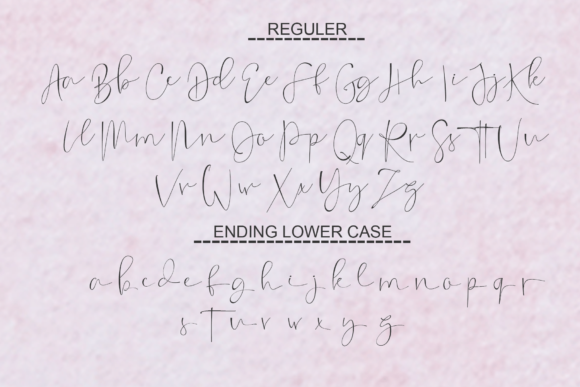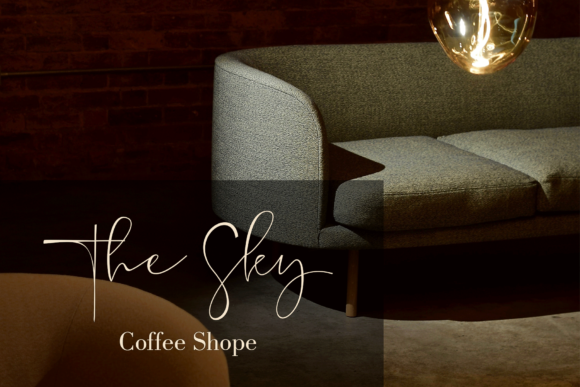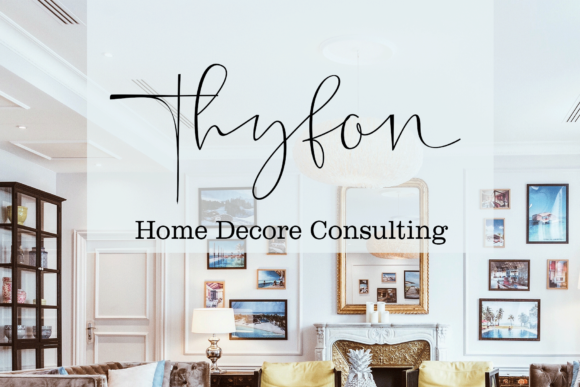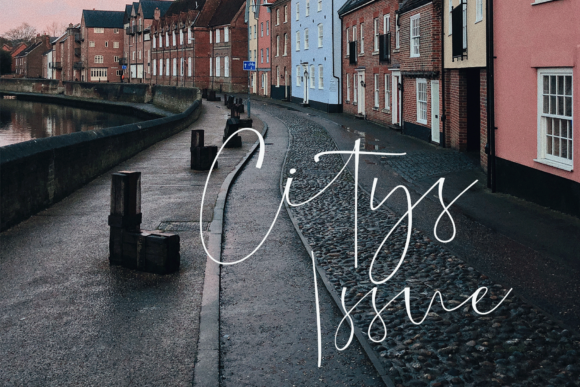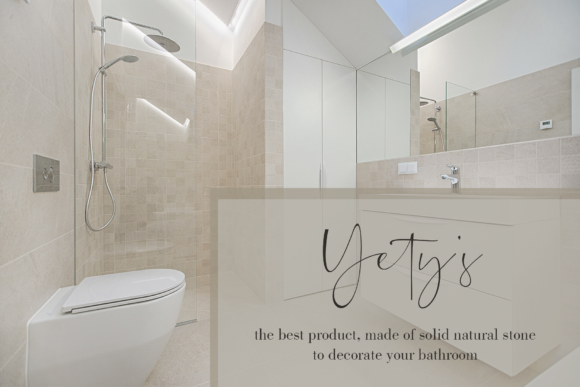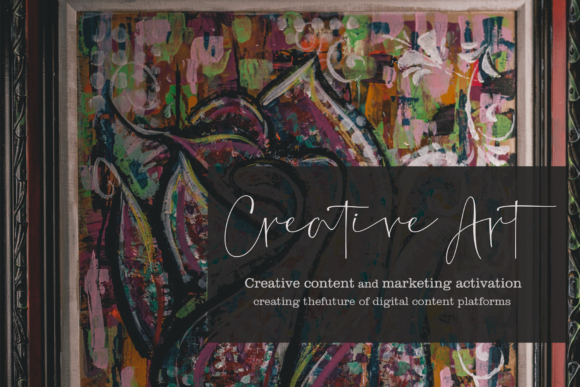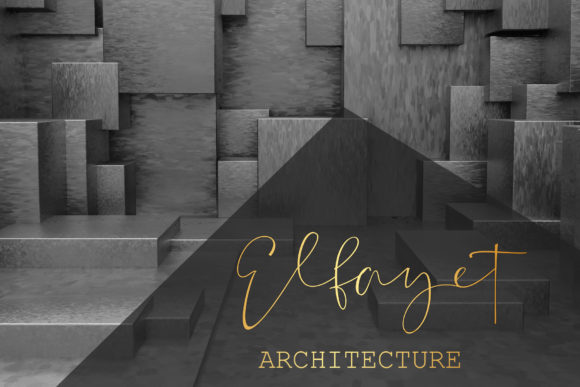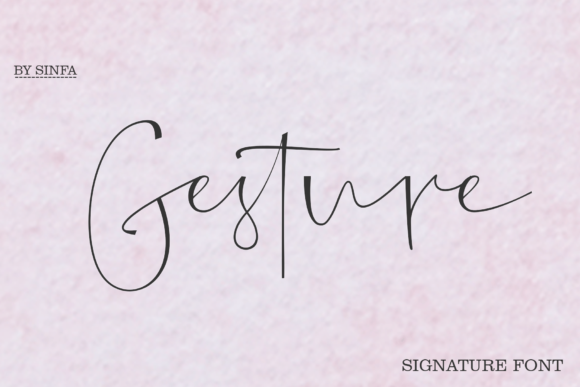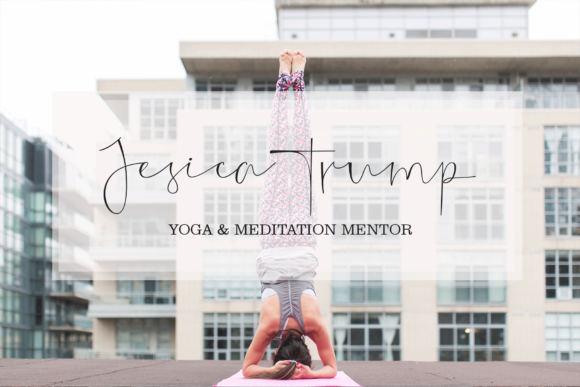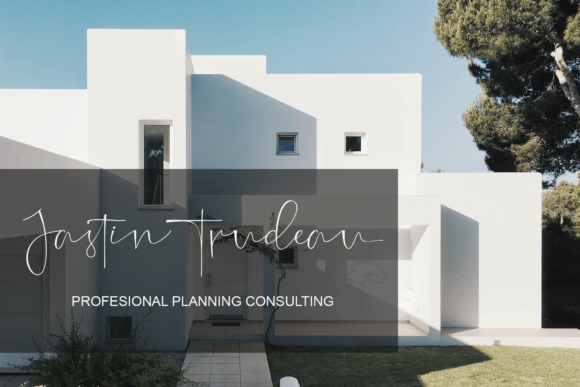
Gesture Font
“Gesture” sounds like a stylish and delicate script font that exudes elegance and refinement. With its clean, thin, and smooth vibe, this font is perfect for adding a touch of sophistication to any design project.
By using “Gesture” in your designs, you can achieve a sense of style and grace. Its script style adds a personal and artistic touch, making your creations feel more elegant and captivating.
This font’s clean and smooth appearance makes it suitable for various design contexts. Whether you’re working on branding, logos, wedding invitations, quotes, or any other project, “Gesture” can effortlessly enhance the visual appeal and create a sophisticated atmosphere.
With “Gesture,” you have a font that is a hit for any design where you want to add a touch of elegance and refinement.
Incorporate “Gesture” into your designs, and you’ll see how it adds a touch of style and grace, making your projects visually stunning and captivating.
With PUA encoding, you have access to all of the glyphs and swashes, allowing you to explore various stylistic variations and decorative elements, giving you creative freedom to customize the typography according to your vision.
While embracing the stylish and delicate nature of “Gesture,” remember to maintain readability and legibility. Proper spacing and alignment between letters ensure that the text remains clear and easy to read, preserving the font’s overall elegance and refinement.
In conclusion, “Gesture” is a stylish and delicate script font that adds a touch of sophistication to your designs. Embrace its clean, thin, and smooth vibe, and let it be the font that enhances the elegance and grace of your branding, logos, wedding invitations, quotes, and other creative projects. With “Gesture,” your designs will exude style and captivate the hearts of your audience, making them truly exceptional and visually captivating.